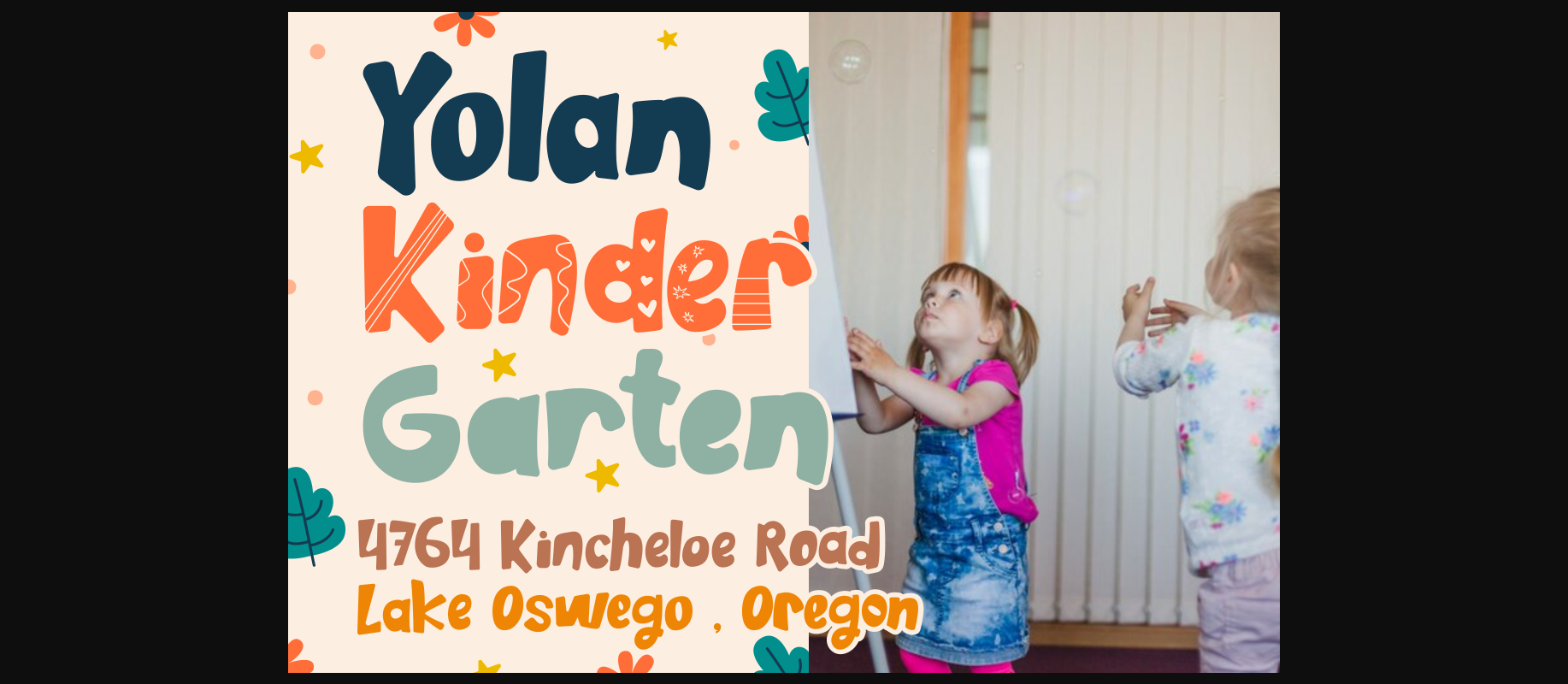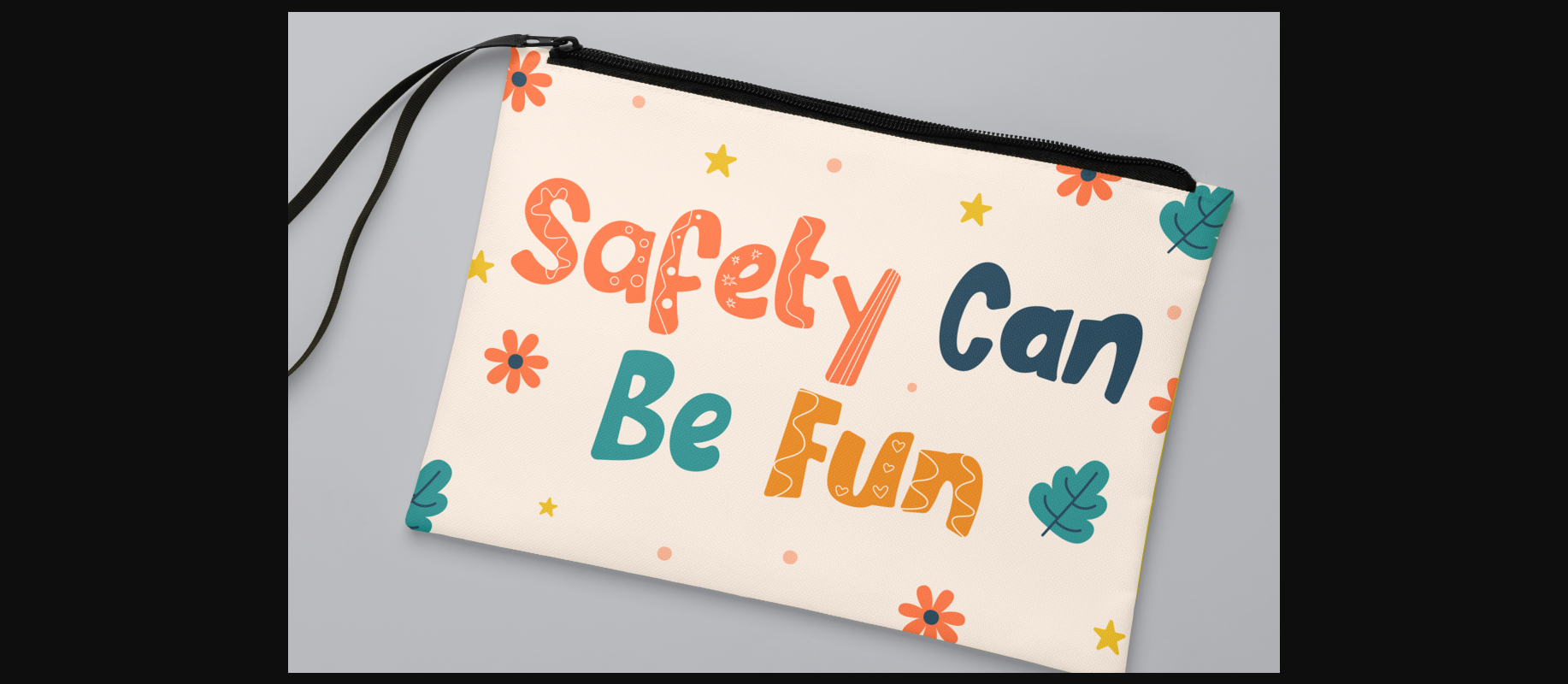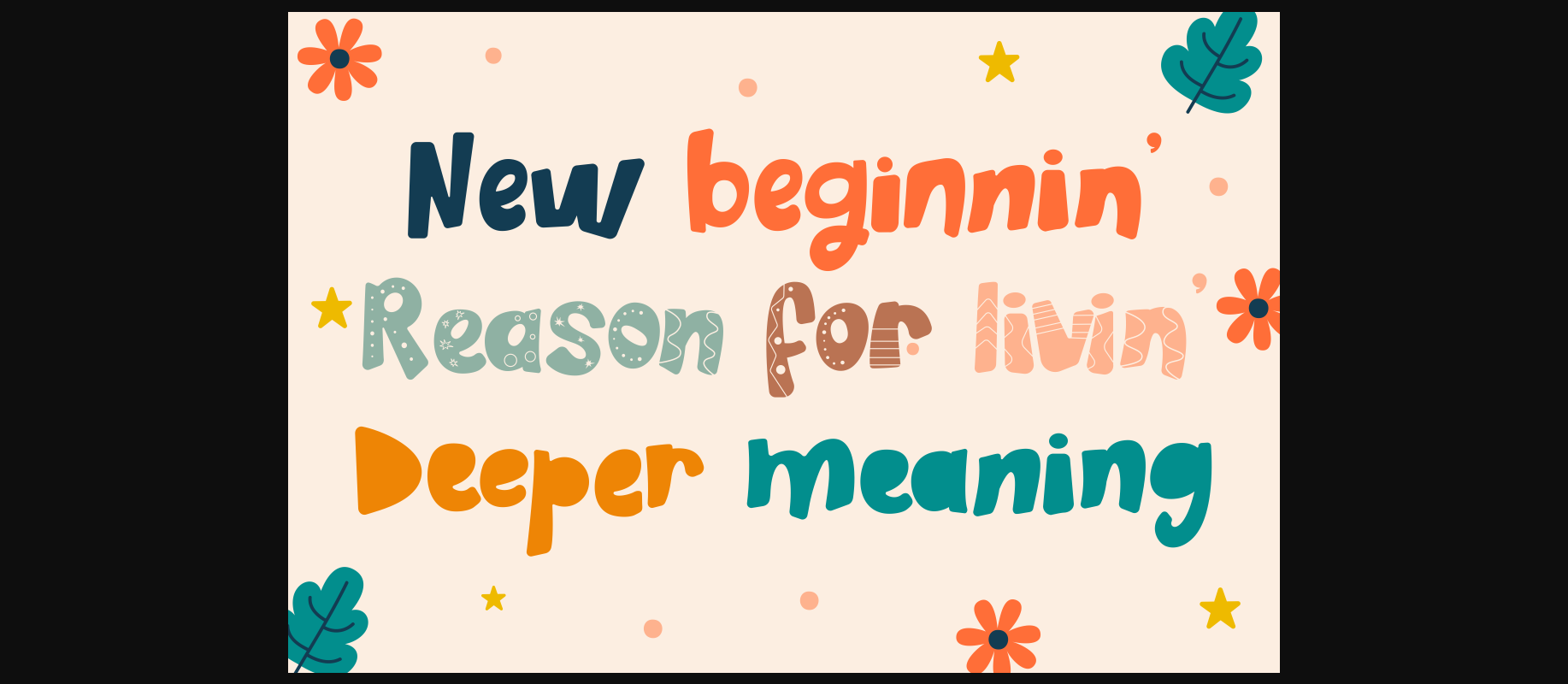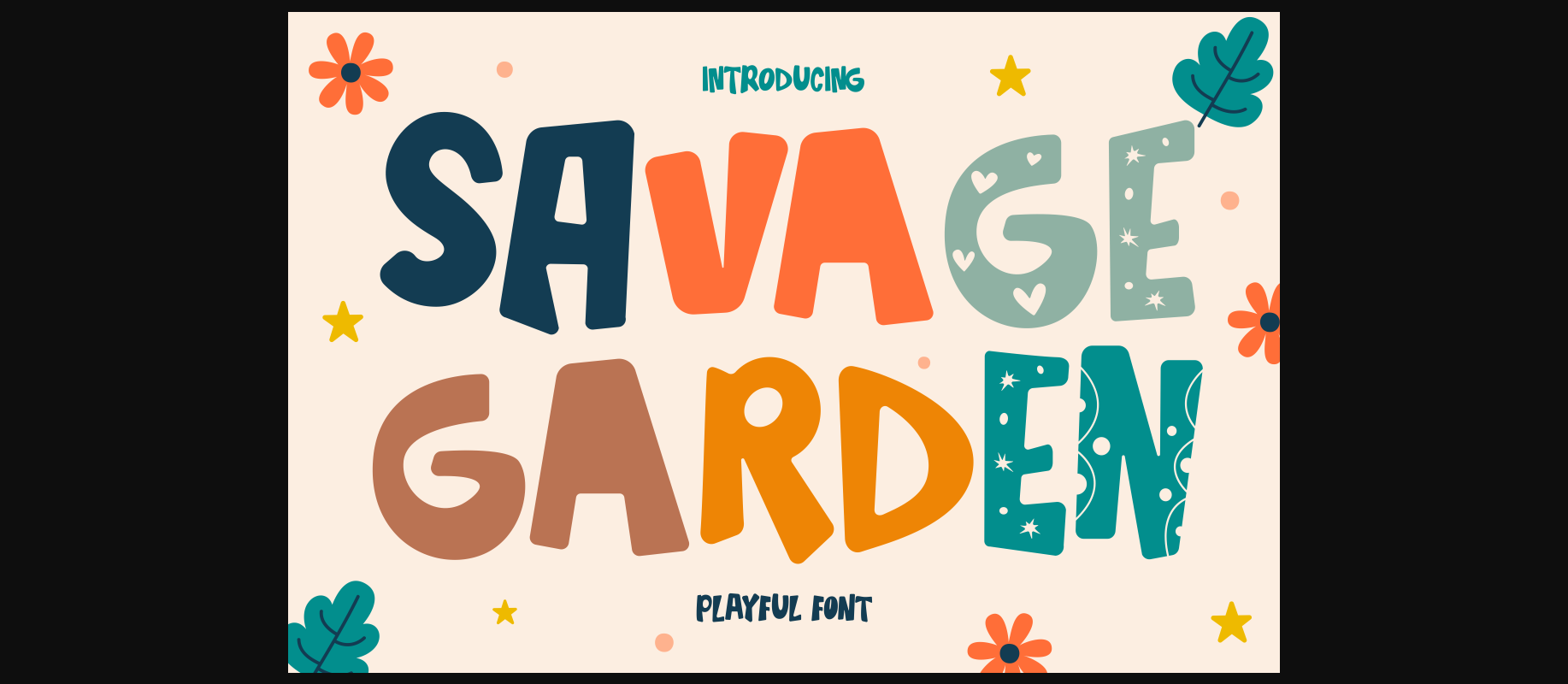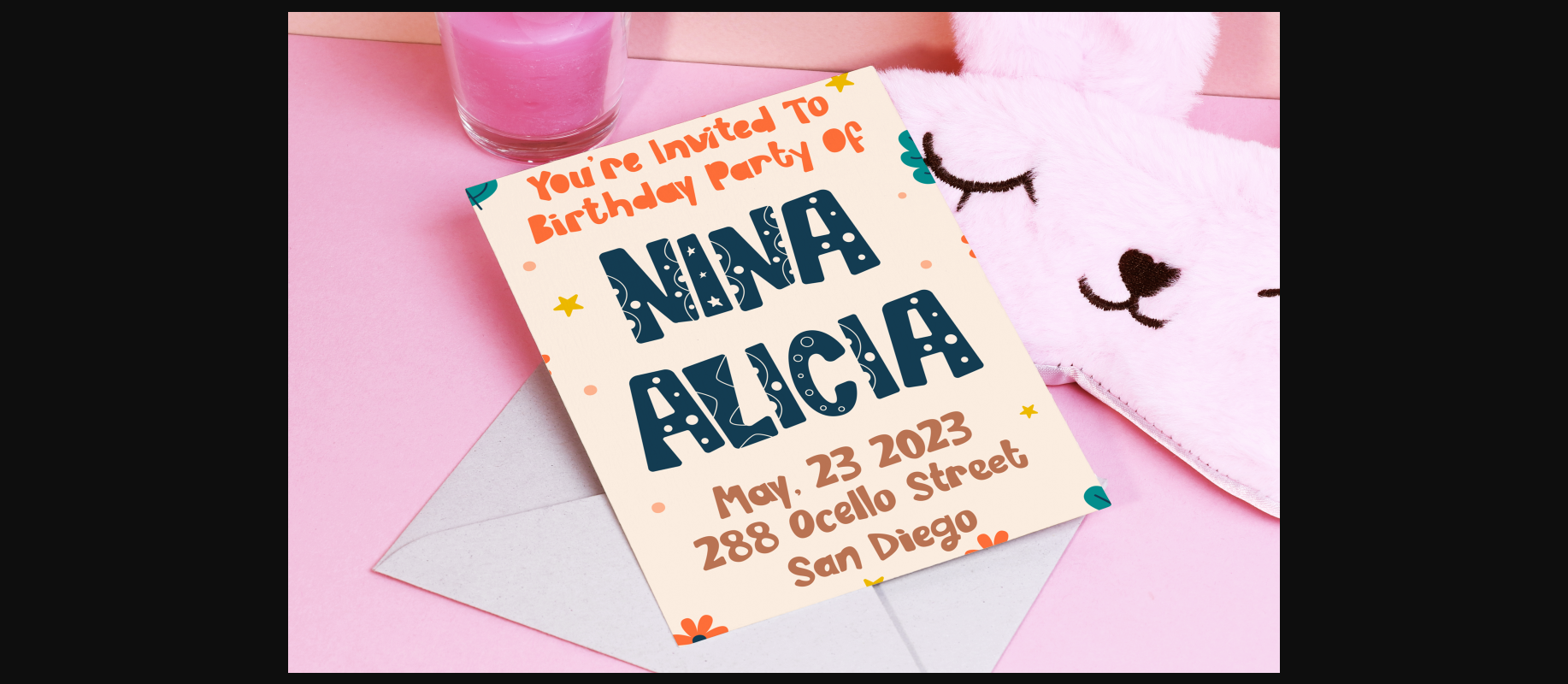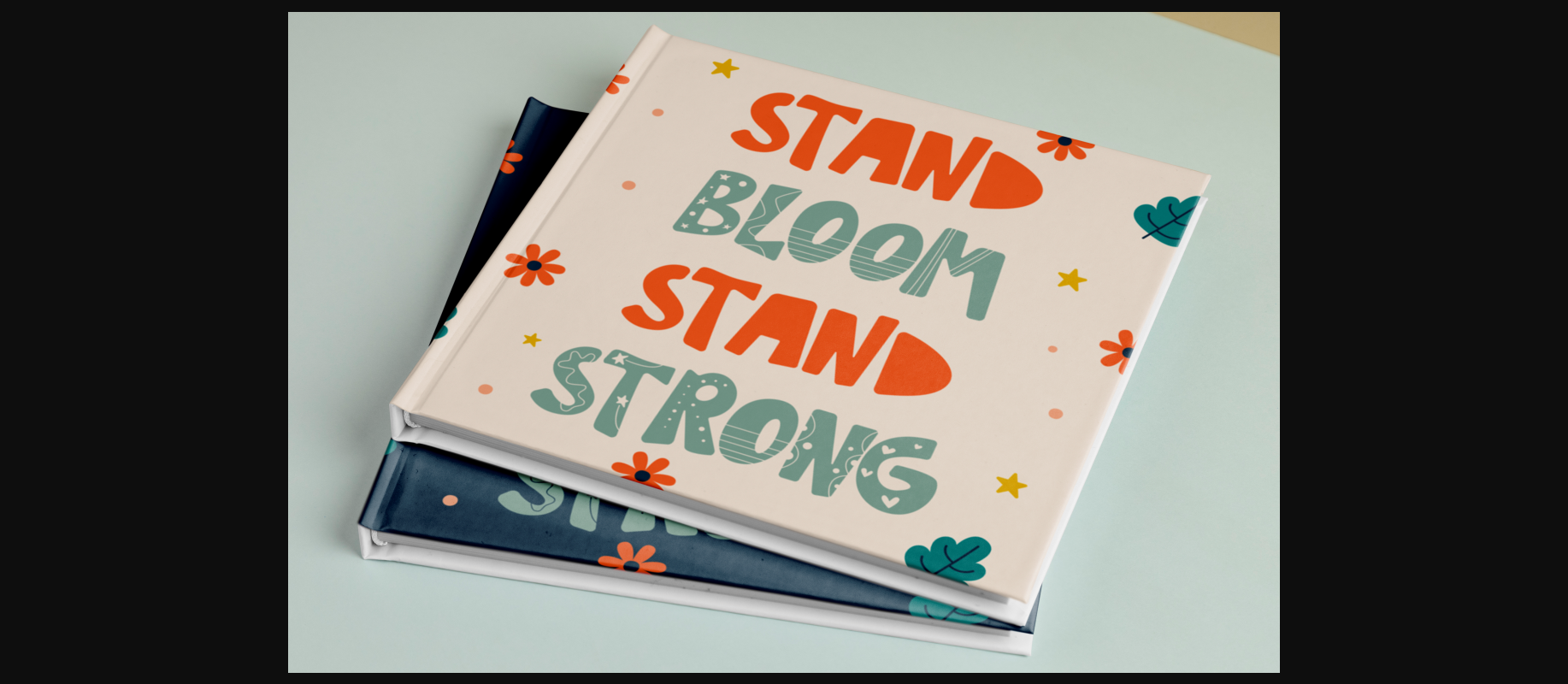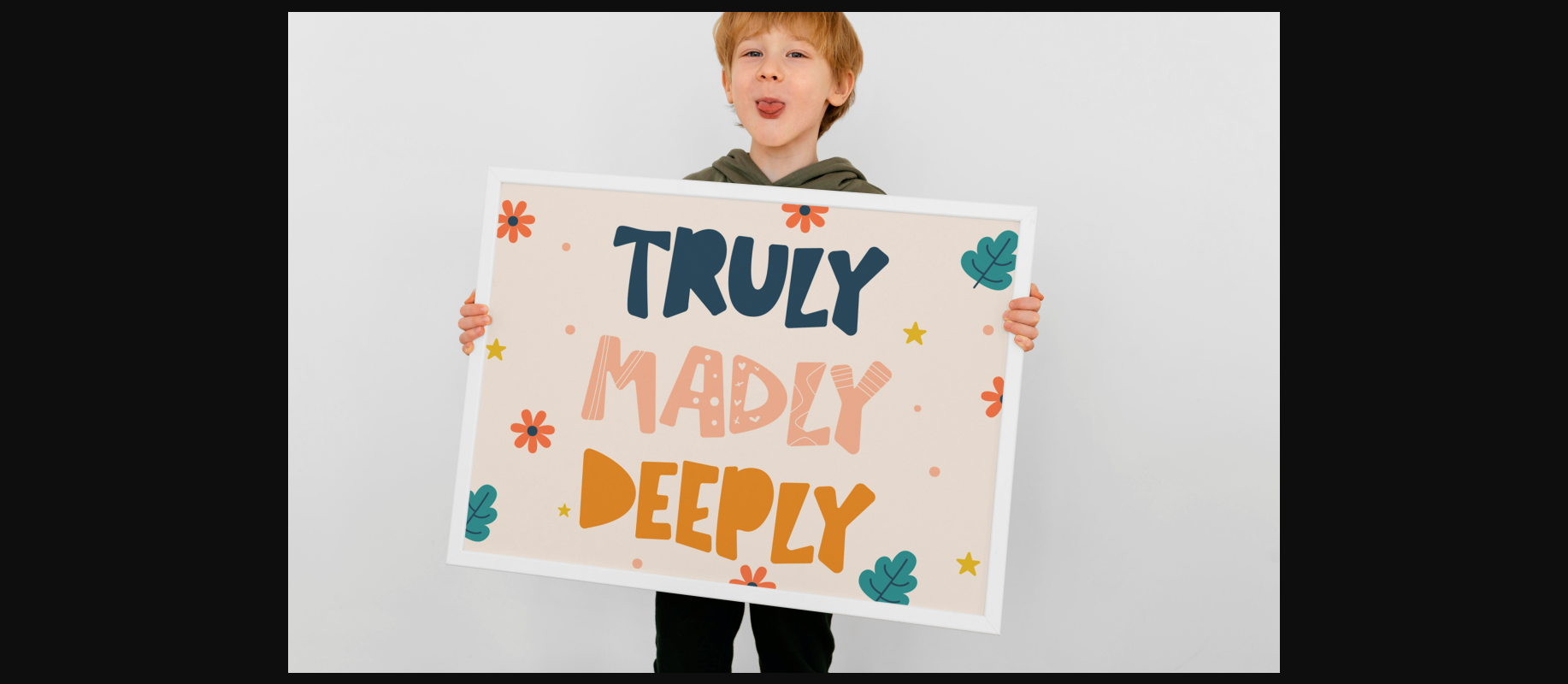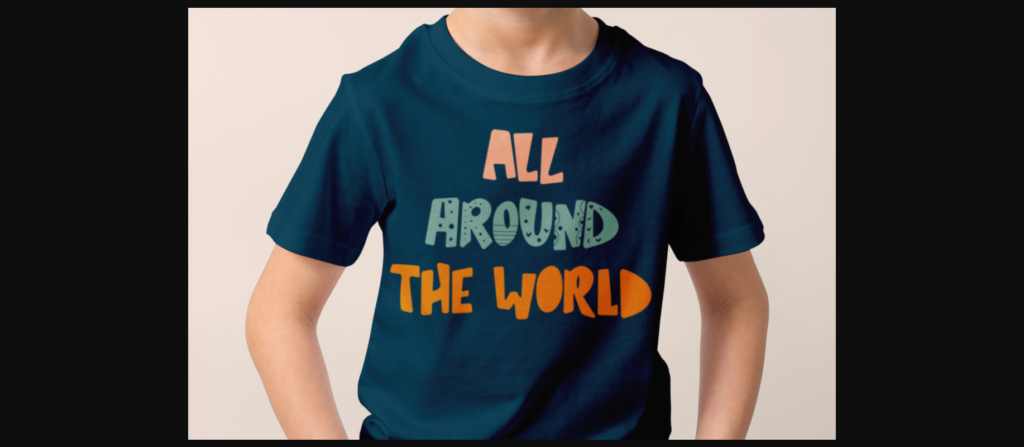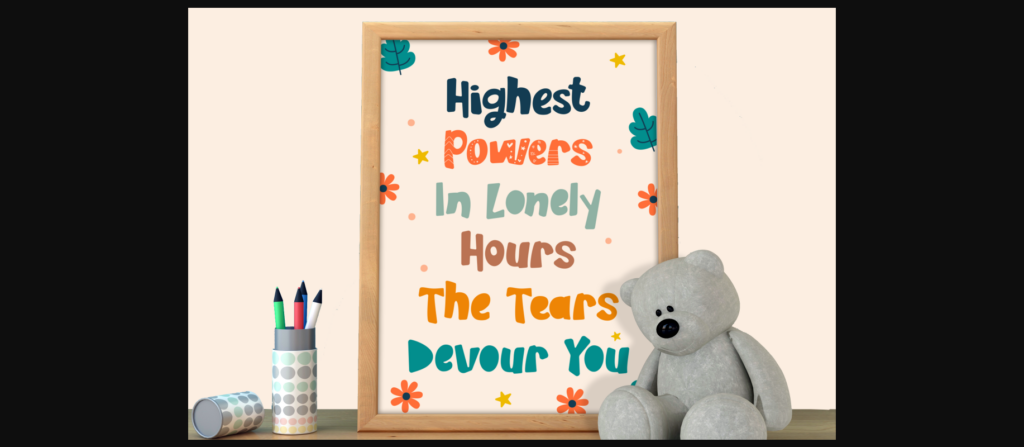
Savage Garden Font
About Savage Garden Font
Savage Garden – 3 Quirky Playful Fonts are a delightful trio of typefaces that exude a sense of whimsy and playfulness with their unique and irregular letterforms. This font family includes three distinct versions: clean/regular, decorative, and block/fill, allowing for creative versatility. The fun and playful vibe of this font makes it a perfect choice for child-related themes or baby-oriented designs. It’s well-suited for logos, printing materials, branding, quotes, posters, greeting cards, birthday cards, invitations, children’s books, and more, adding a touch of joy and creativity to your projects.